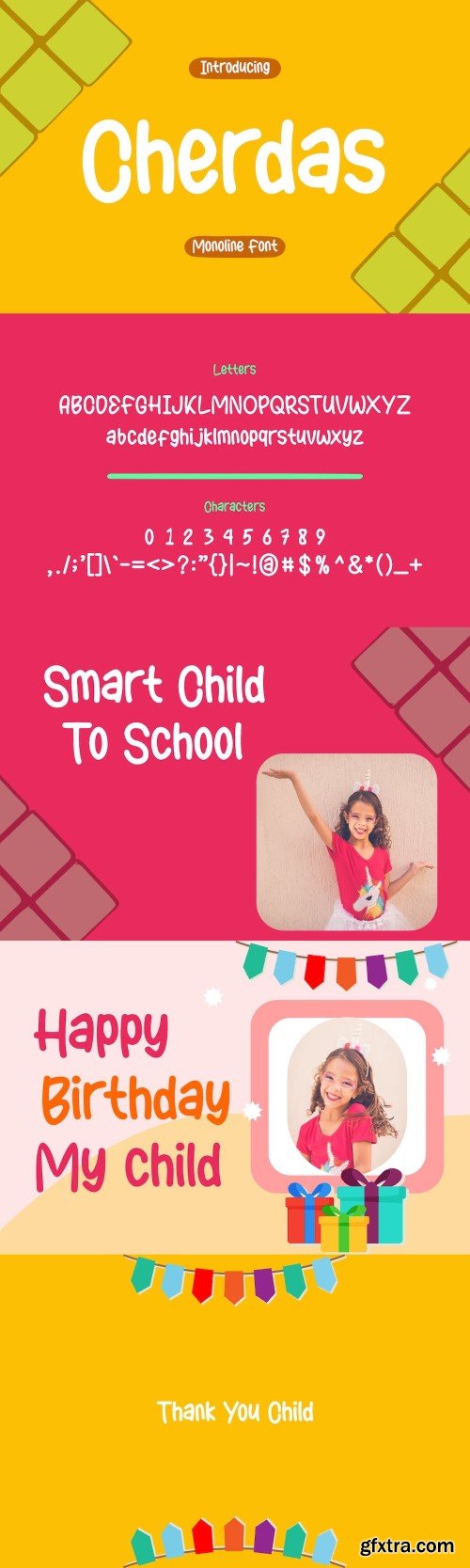
奇尔达斯字体
Introducing our new product Cherdas Font - Modern Font
Cherdas Font - Modern Font is a bold and authentic display font. The font is suitable for any branding project like logo, esport, and many more. outstanding in a wide range of contexts.